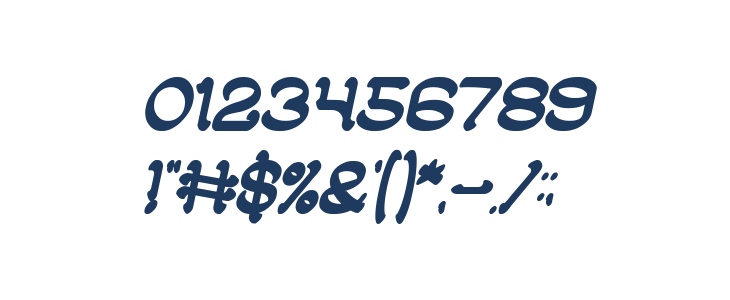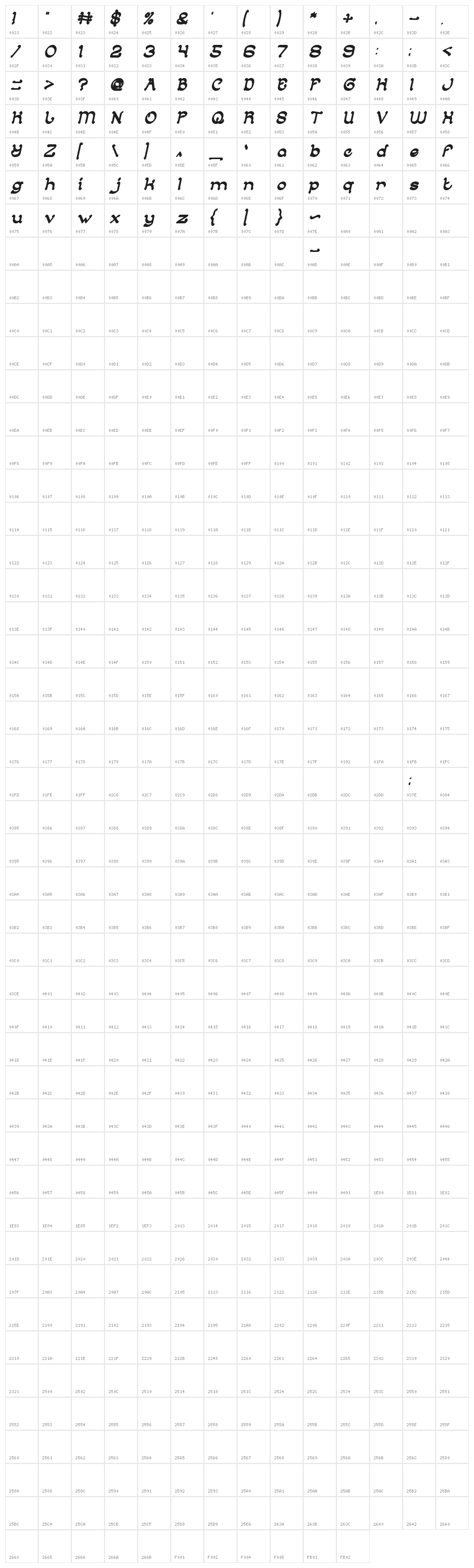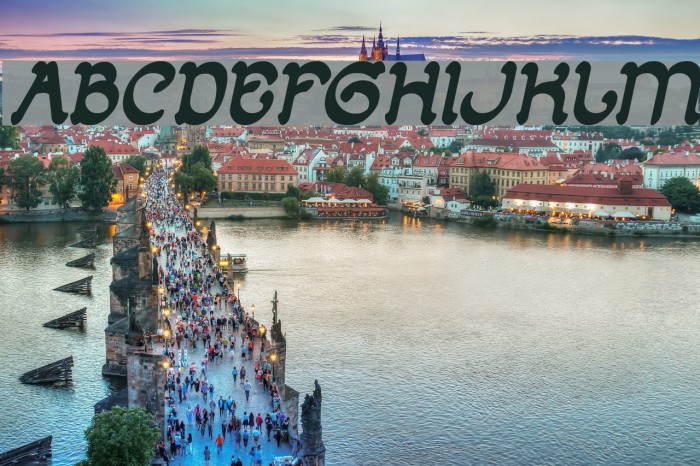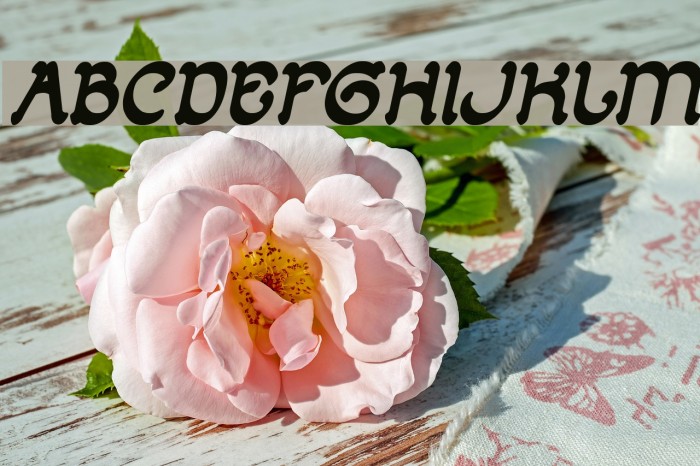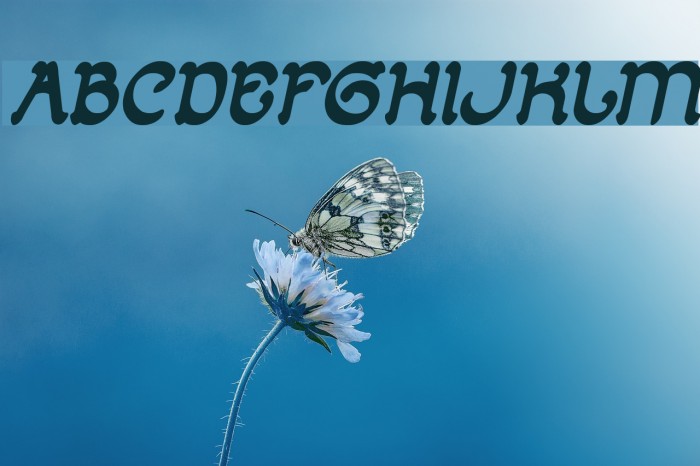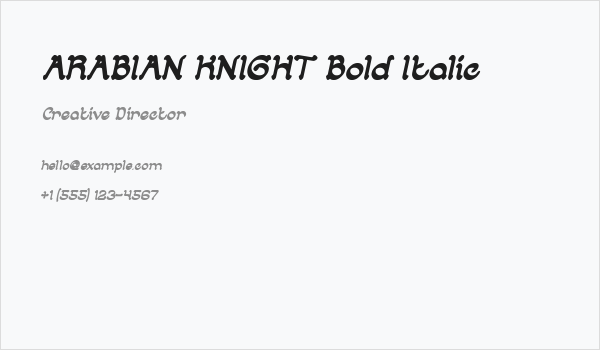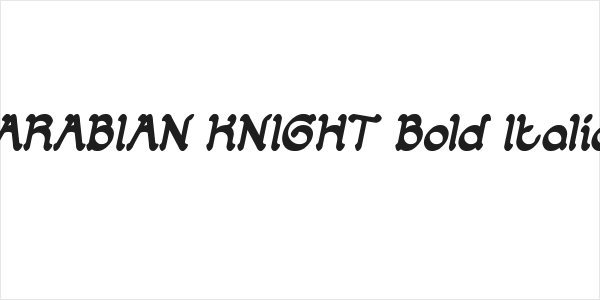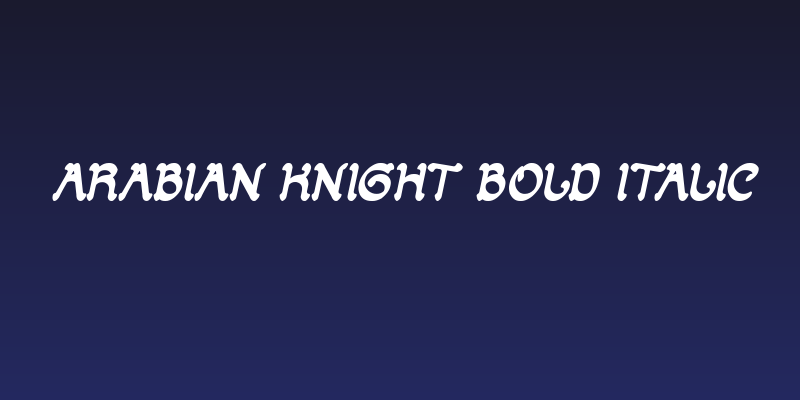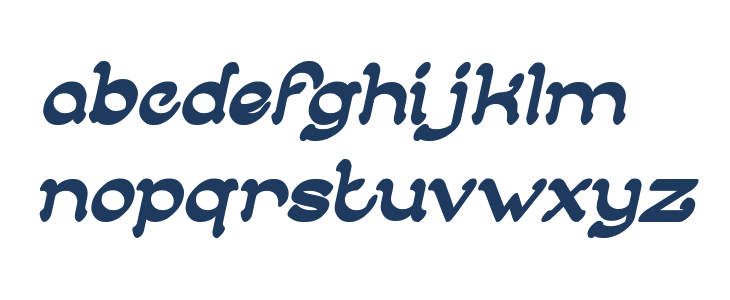
ARABIAN KNIGHT Bold Italic Font
ARABIAN KNIGHT Bold Italic Description
This font features a bold and italicized style with a distinctive, flowing script that combines both elegance and readability. The characters are well-rounded with smooth curves, giving it a dynamic and lively appearance. The uppercase letters are slightly larger and more pronounced, while the lowercase letters maintain a consistent flow, enhancing the overall aesthetic. The numerals and special characters are designed to match the font's bold and italic nature, ensuring uniformity across all elements. This font exudes a sense of sophistication and creativity, making it suitable for various design applications.